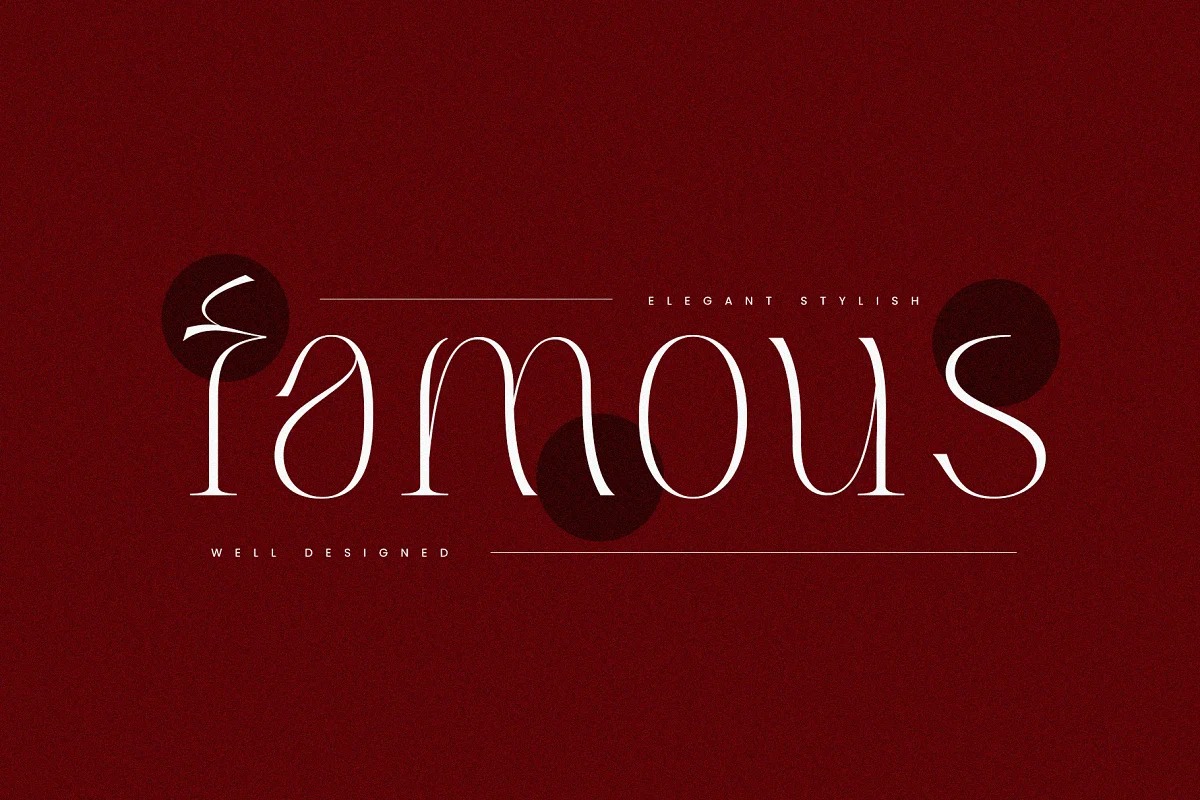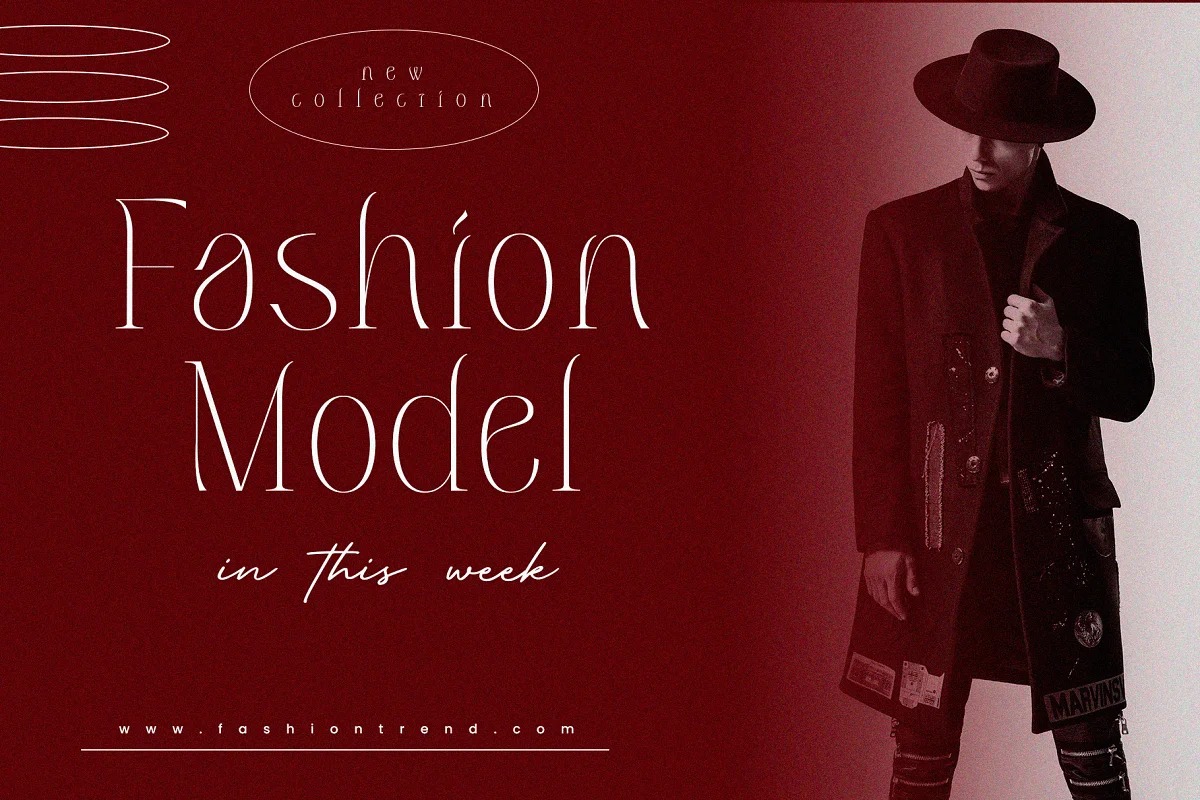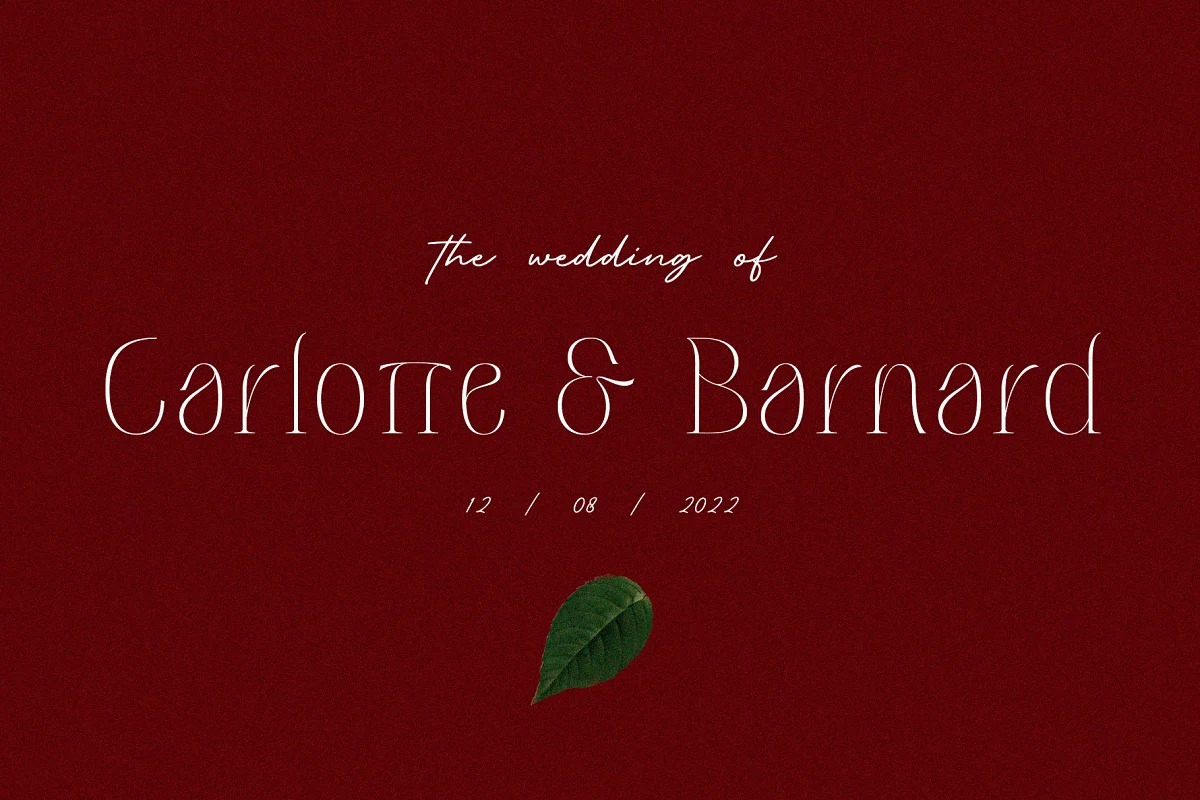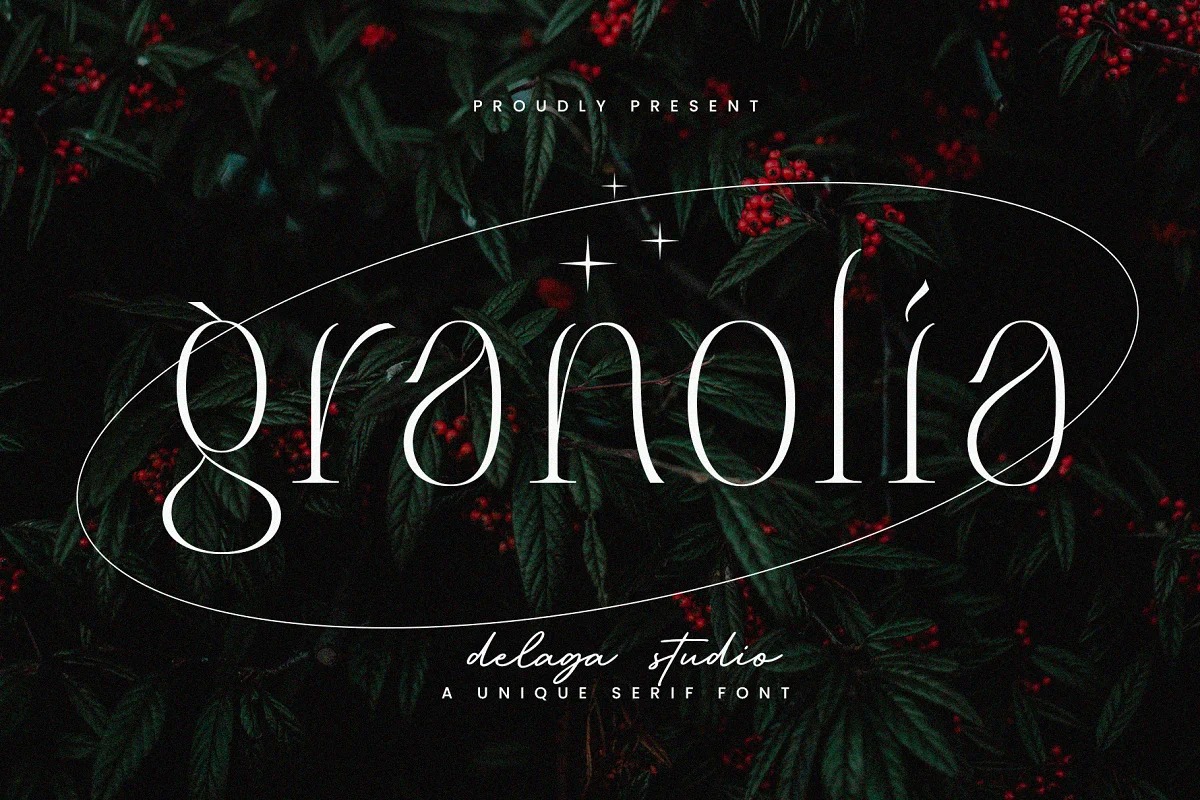
Granolia Serif Font is a stylish and rich serif font created by Delaga Studio with letters that seem to dance and twist harmoniously together to form unique and elegant typography designs. The anatomy of thin letters collaborates with quirky alternatives and beautiful bindings to make any project look chic, upscale, quirky, artistic, and a bit of a retro vibe.